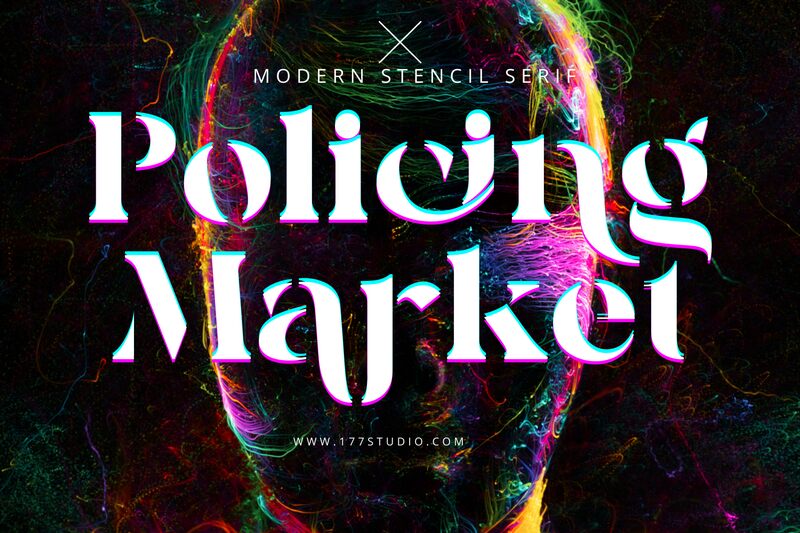
Policing Market Bold
Policing Market Bold is a captivating display font from the Policing Market font family, designed by 177Studio. With its bold and impactful stencil style, this font is perfect for projects that aim to convey strength and authority.
Use it to create attention-grabbing logos, posters, or headlines that demand recognition. Its commanding presence makes it an excellent choice for military-themed designs, law enforcement-related campaigns, or any project that requires a strong visual identity.